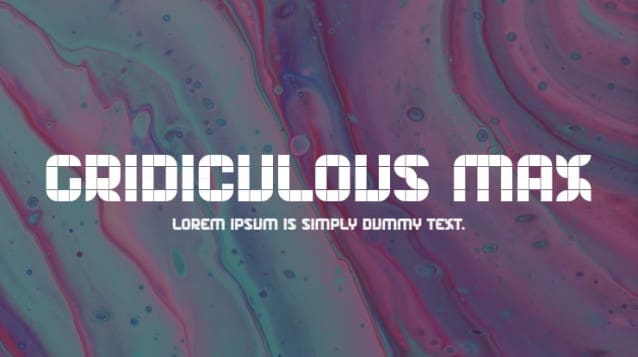
Gridiculous Max Font, modern, semi-monospaced grid font, great for logos, sci-fi graphics, and infographics. Retrofuturistic vibes.
Gridiculous Max Font